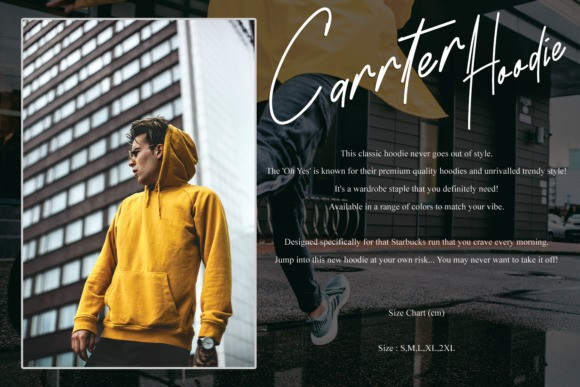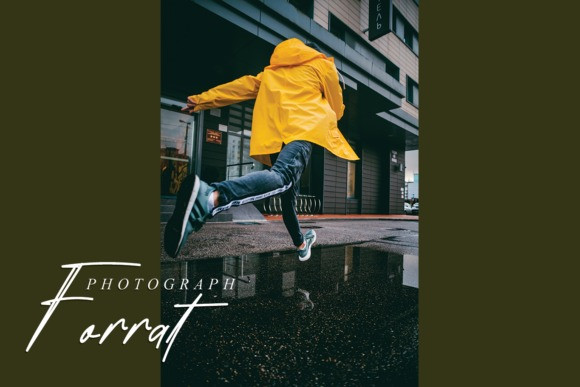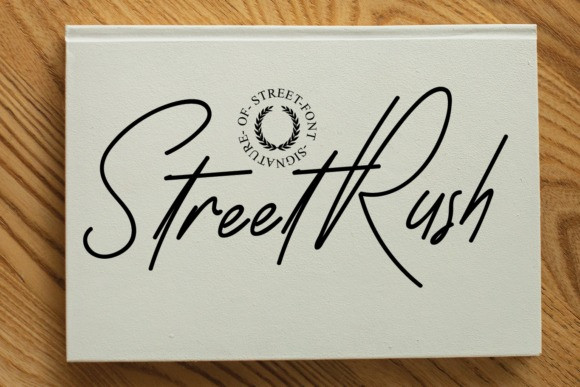
Street Rush Font
Street Rush feels equally charming and elegant. It looks stunning on wedding invitations, thank you cards, quotes, greeting cards, logos, business cards, and every other design which needs a handwritten touch.